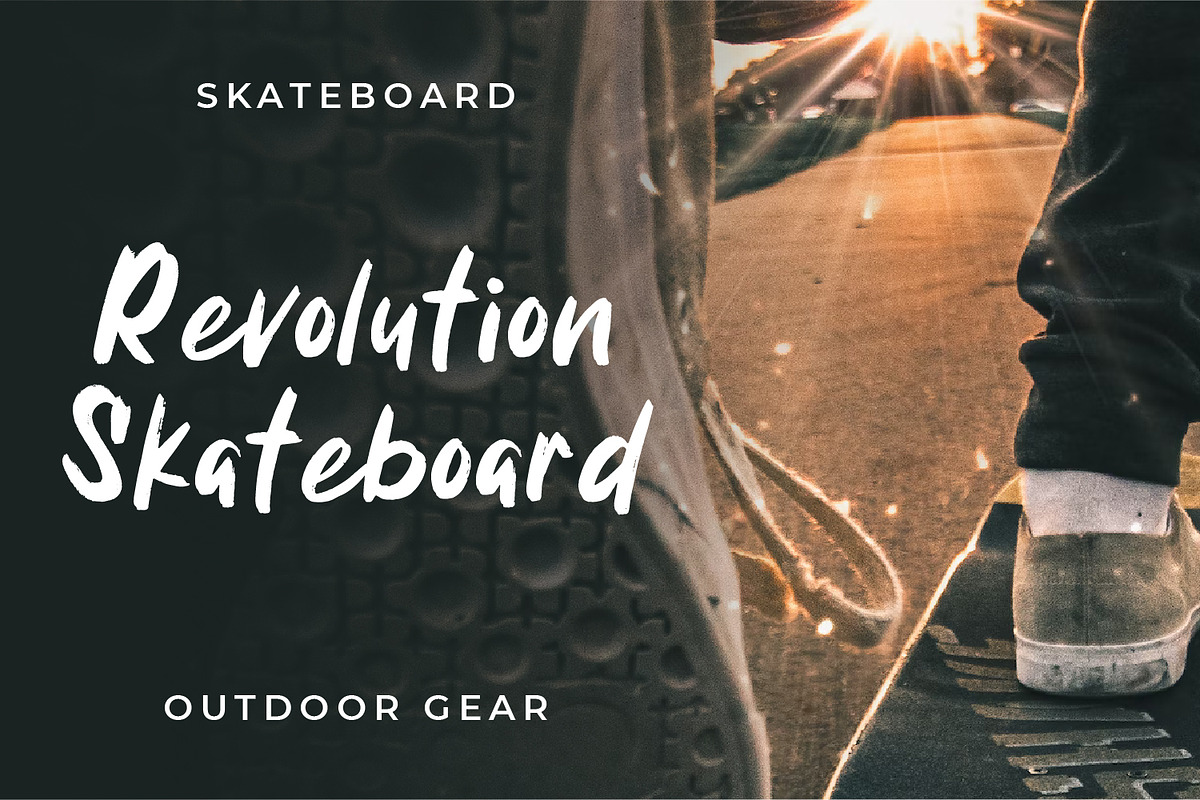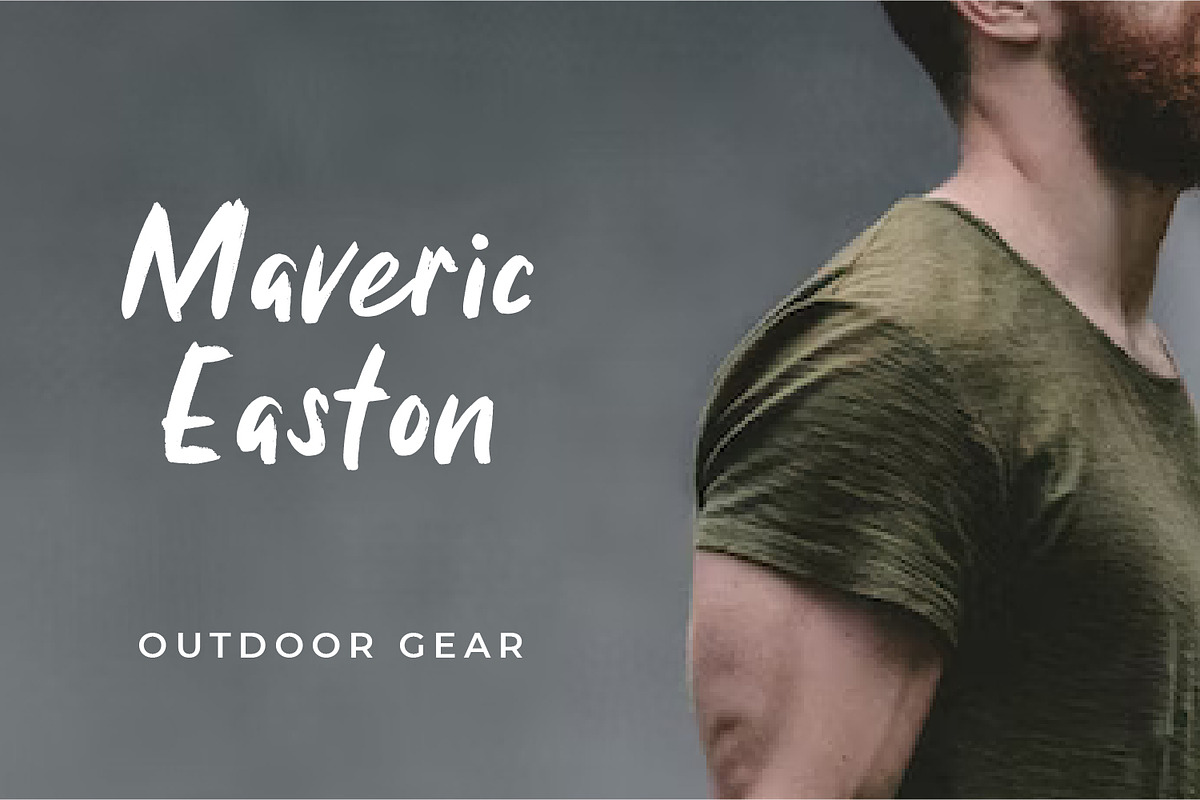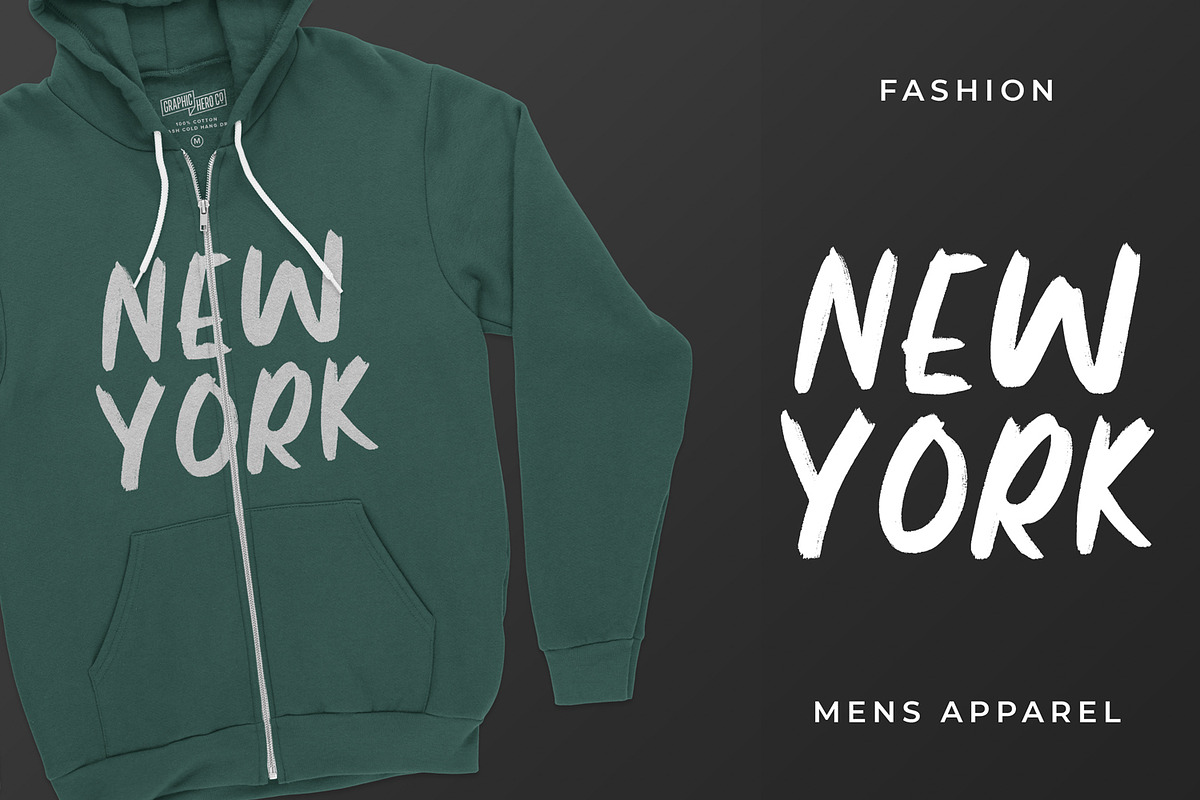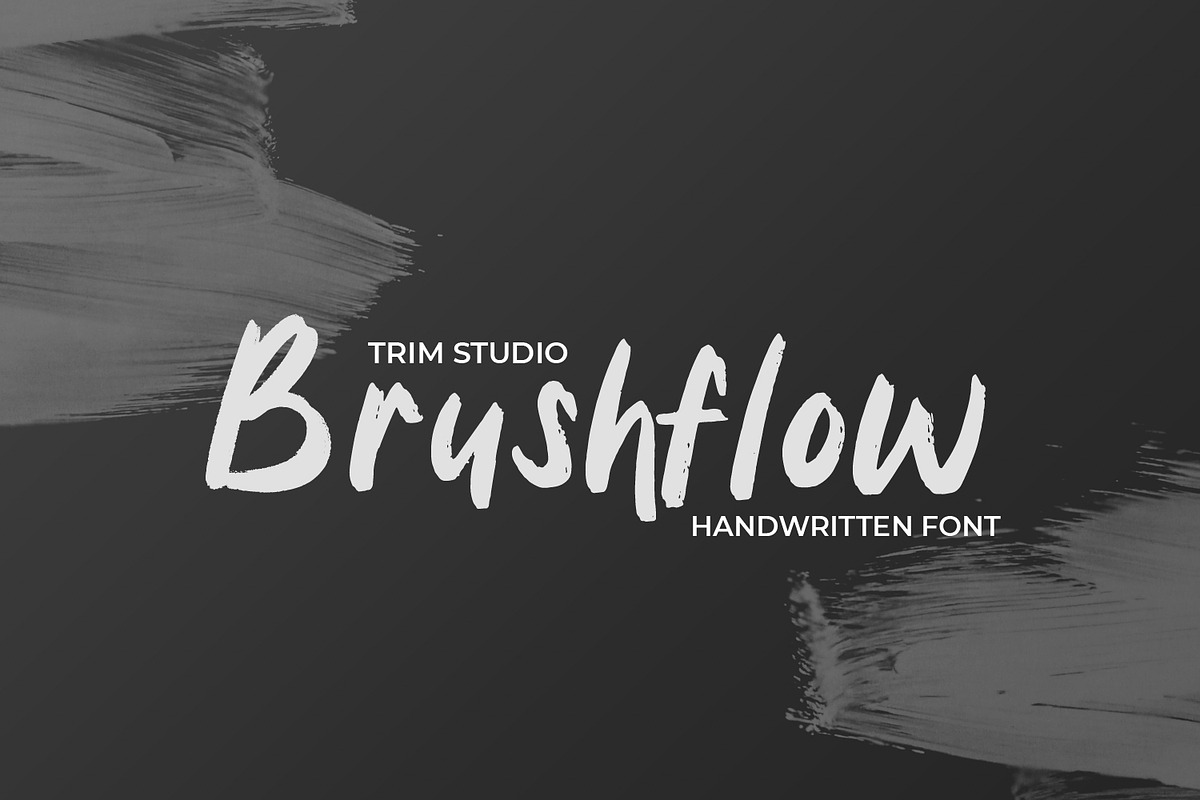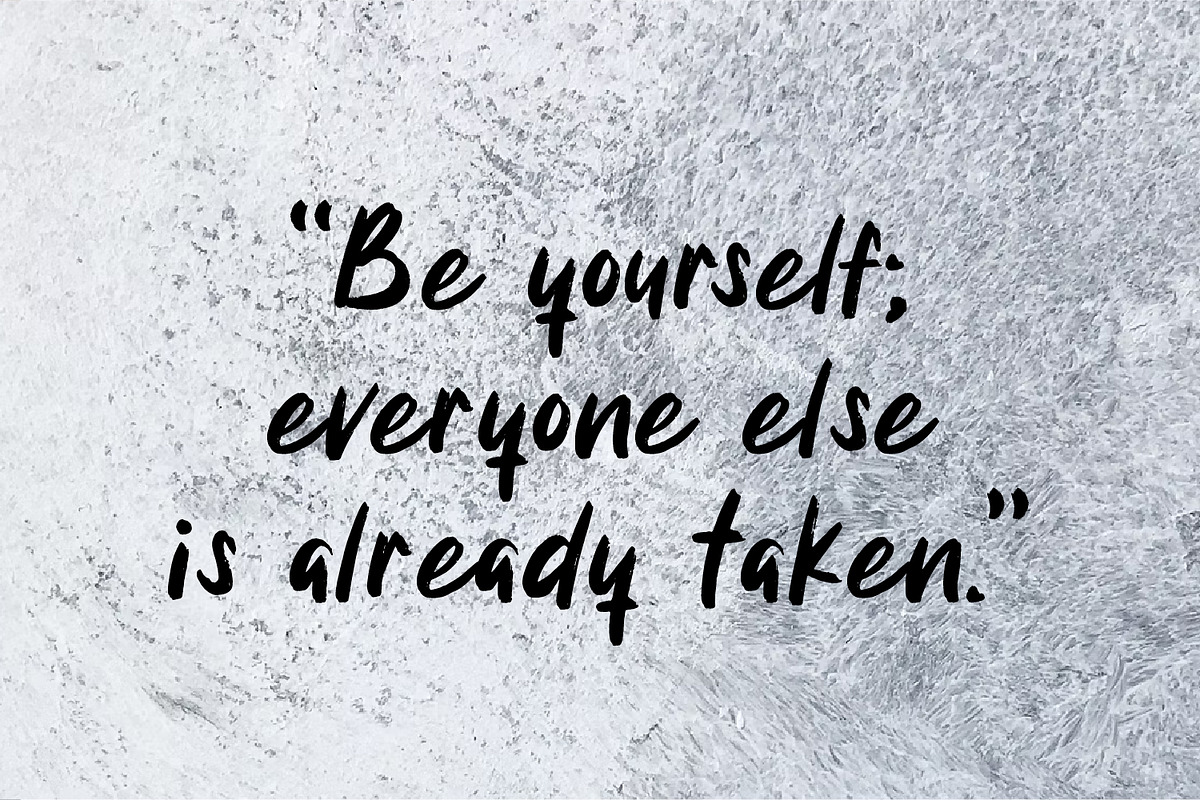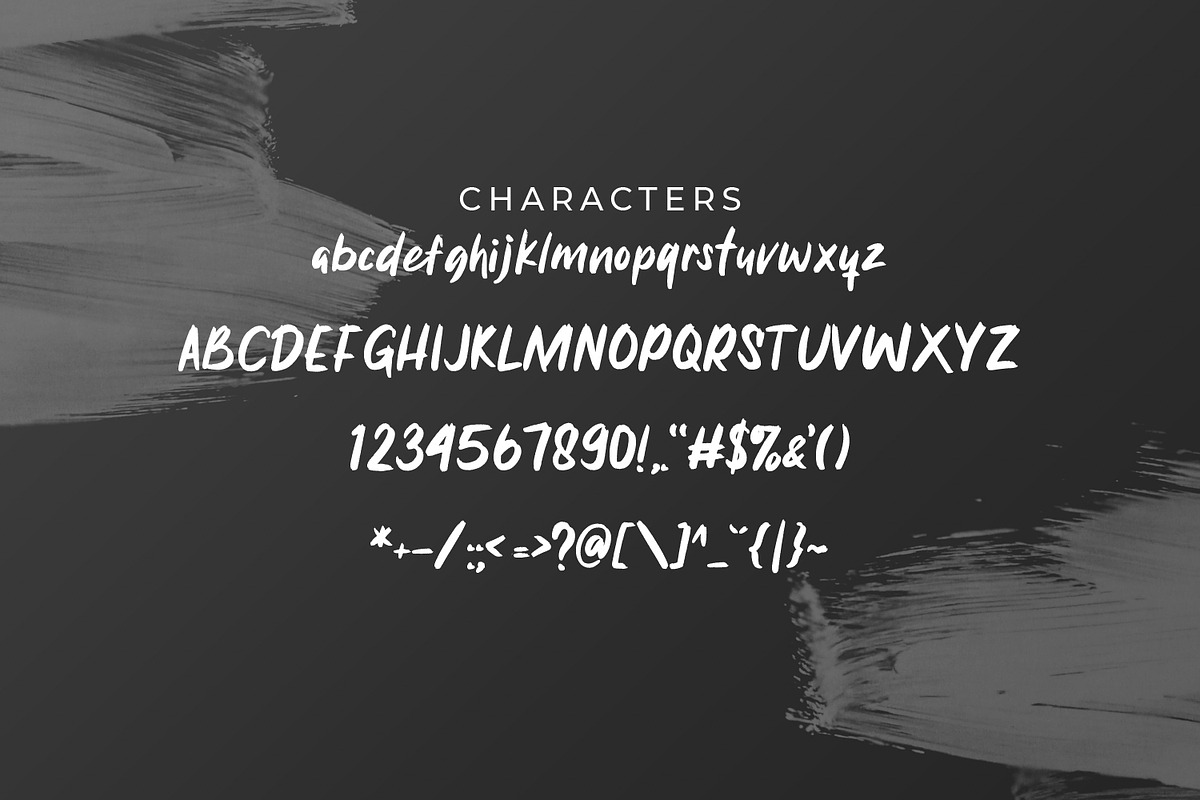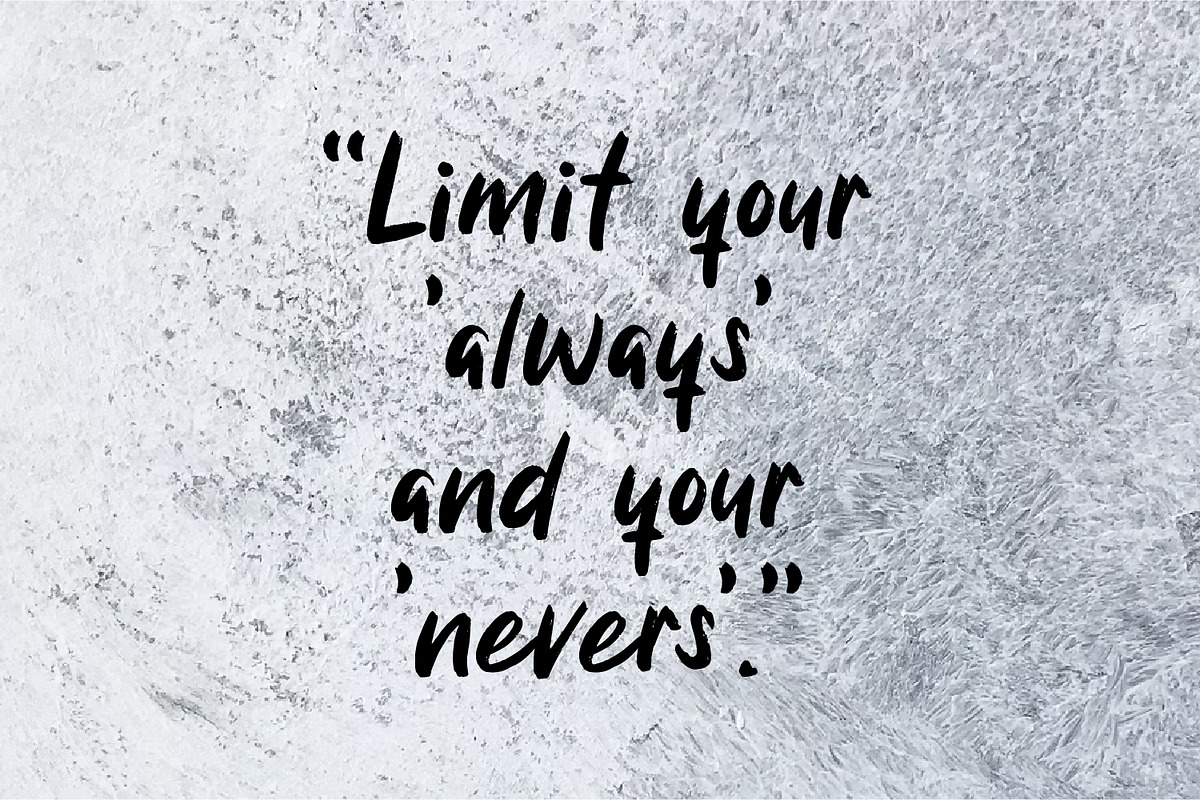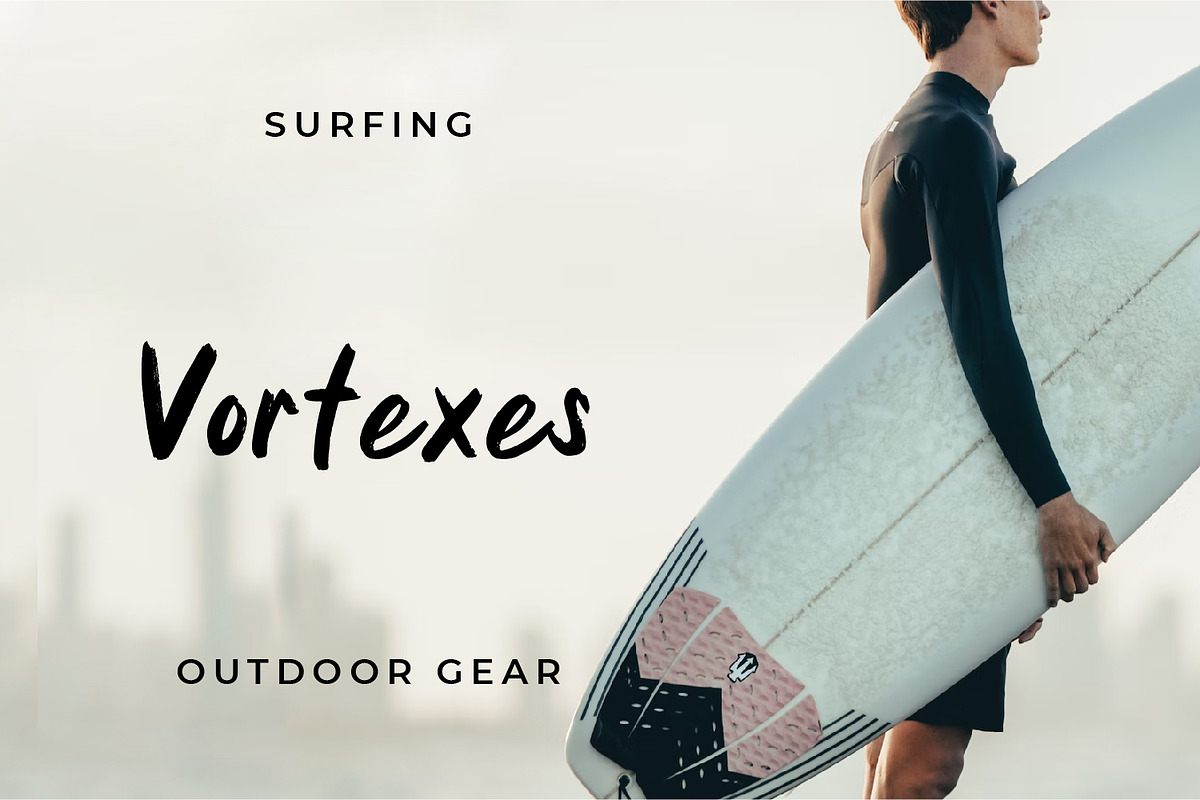
BrushFlow - Bold Brush handwritten
Brushflow font is a bold and simple handwritten brush font that is perfect for creating designs with a personal touch. The thick brush strokes of this font give it an impactful and commanding presence, making it perfect for titles, headlines, and other design elements that need to stand out.